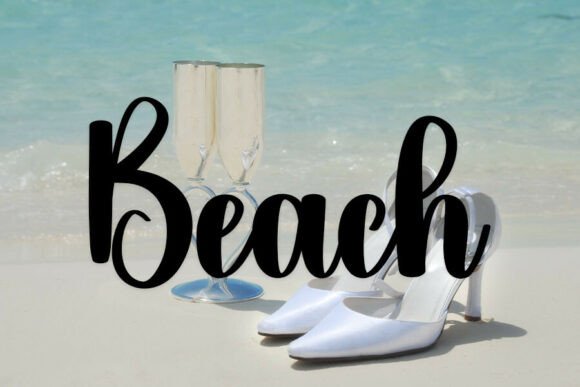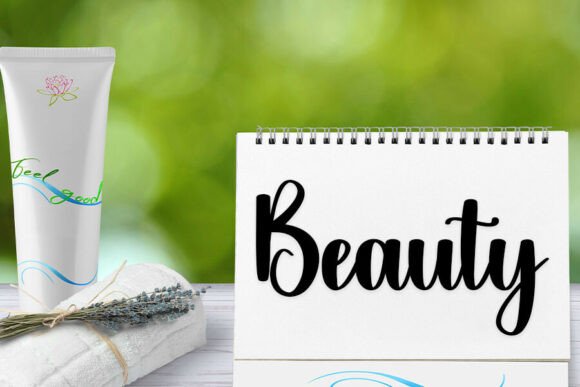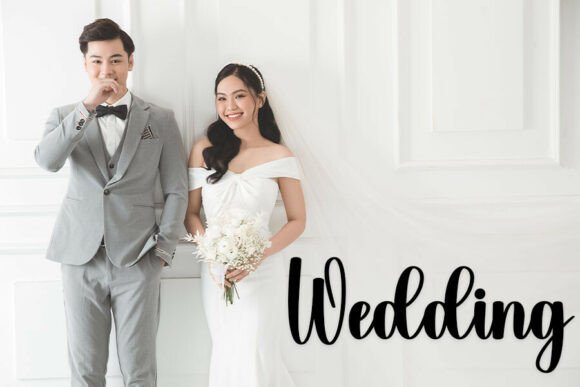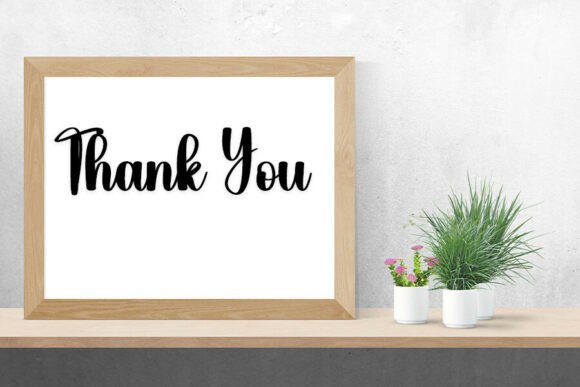
The Power of Bible Verse Font: Elevating Your Designs with Faith and Beauty
A Closer Look at Bible Verse
Bible Verse is a stunning, handwritten script font that draws inspiration from faith and devotion. Its brush-style texture and flowing curves bring a sense of warmth and sincerity to every word, making it perfect for a variety of design projects, from church bulletins and spiritual journals to wedding invites and prayer cards.
The font includes uppercase, lowercase, numerals, punctuation, and multilingual support, ensuring that your message shines with elegant, heartfelt lettering that’s rooted in belief and beauty.
- ✨ Effortless elegance: Bible Verse has a way of elevating your designs with its beautiful, flowing curves.
- ✅ Versatility: Whether you’re working on a wedding invitation, a church bulletin, or a social media post, this font adapts seamlessly to any project.
- 💕 Emotional connection: The handwritten script and brush-style texture evoke a sense of warmth and sincerity, making it perfect for projects that require a personal touch.
Of course, no font is perfect, and Bible Verse has a few minor quirks:
- 🤔 Limited use in very formal designs: While Bible Verse is elegant, its handwritten nature may not be suitable for very formal or corporate designs.
- ⚠️ Occasional kerning issues: As with any font, you may encounter some kerning issues, especially when using certain character combinations.
The Story Behind Bible Verse
Bible Verse was designed with the intention of capturing the essence of faith and devotion. The designer aimed to create a font that would bring warmth and sincerity to every word, making it perfect for projects that require a personal touch. The result is a beautiful, handwritten script that has become a staple in many designers’ toolkits.
| What type of projects is Bible Verse suitable for? | Bible Verse is perfect for church bulletins, spiritual journals, wedding invites, prayer cards, and social media posts. |
| Does Bible Verse include multilingual support? | Yes, Bible Verse includes multilingual support, making it suitable for projects in various languages. |
| Is Bible Verse available in different weights or styles? | Currently, Bible Verse is available in a single weight, but its versatility and elegance make it suitable for a wide range of projects. |